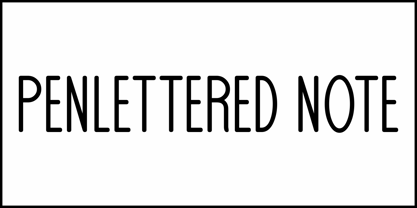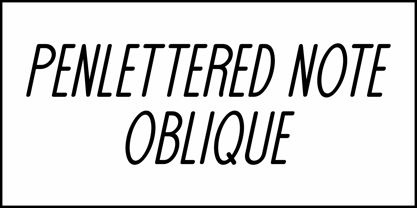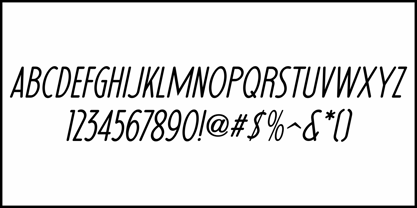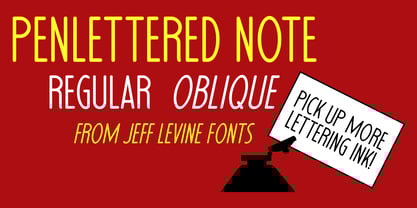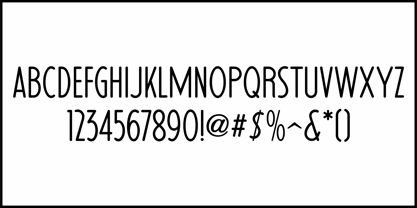
Penlettered Note JNL
von Jeff Levine
Die Schriftfamilie Penlettered Note JNL wurde von Jeff Levine entworfen und von Jeff Levine veröffentlicht. Penlettered Note JNL enthält 2 Stile und Familienpaketoptionen. Mehr über diese Familie
An ad for the Shirley Temple film "Bright Eyes" appeared in the November 28, 1934 issue of The Film Daily.
Part of the ad copy utilized a condensed, hand lettered style made with a round nib pen. This inspired Penlettered Note JNL, which is available in both regular and oblique versions.
Designer: Jeff Levine
Foundry: Jeff Levine